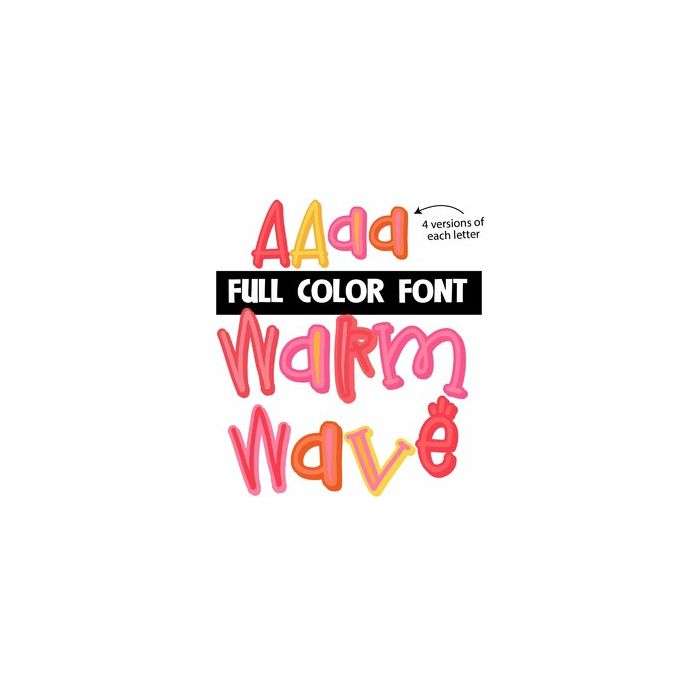
This full-color font features a "warm" color palette in a whimsical font with alternate cases available that you can access through Silhouette's glyph map.